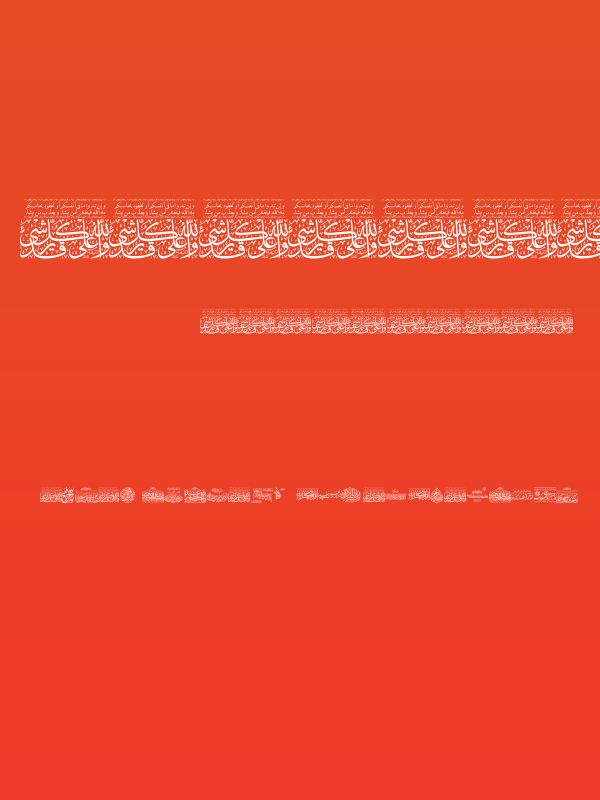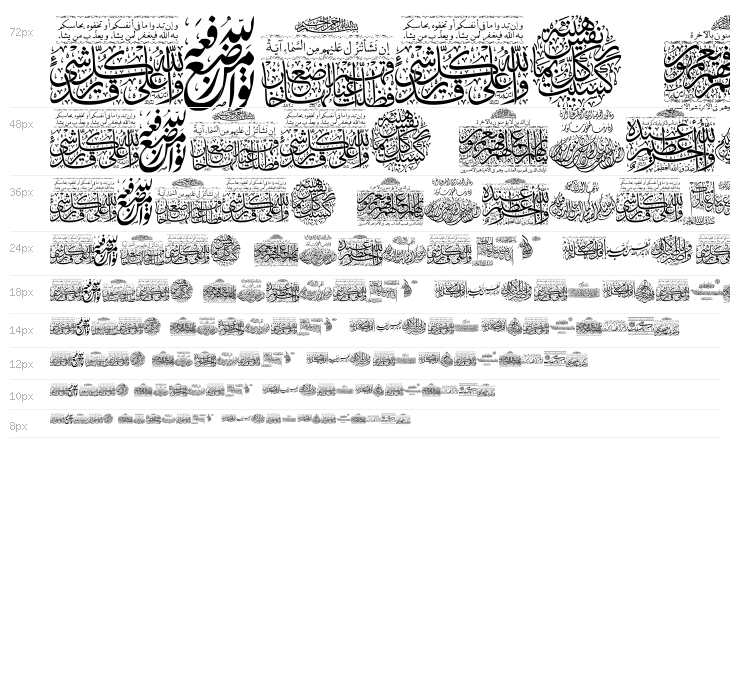
Aayat Quraan_033 Font
Aayat Quraan_033 Description
Highly ornamental Arabic script with intricate calligraphic flourishes and decorative elements, featuring dense, interwoven letterforms and elaborate diacritics, often used in religious or ceremonial contexts.
| Overall Style | Decorative, Traditional, Religious |
| Use Case | Religious scripture, ceremonial headings, artistic displays |
| Proposed Projects | Religious texts, ceremonial documents, decorative art, certificates, book covers. |